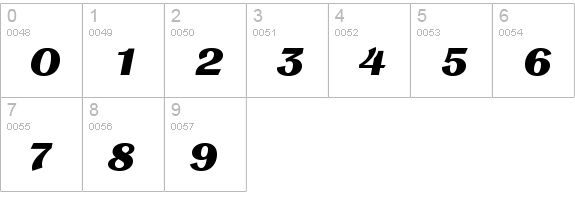
PanacheEF-BlackItalic Font Details
Introducing PanacheEF-BlackItalic, a stunning font that effortlessly combines elegance and boldness. This sleek and sophisticated typeface is the perfect choice for adding a touch of class to your projects. With its sleek lines and graceful curves, PanacheEF-BlackItalic exudes a sense of confidence and style. Whether you're designing a logo, creating an invitation, or crafting a brand identity, this font will make a lasting impression. The unique italic styling of PanacheEF-BlackItalic adds a sense of movement and dynamism to your text, making it truly stand out from the crowd. Its distinct character is sure to captivate and engage your audience, leaving a lasting impression. But what sets PanacheEF-BlackItalic apart from other fonts is that it is not only visually stunning, but also free to download. Yes, you read that right! This incredible font is freely available to download at FontsMarket.com, allowing you to elevate your designs without breaking the bank. So why wait? Embrace the elegance and boldness of PanacheEF-BlackItalic and take your designs to the next level. Download this incredible font today at FontsMarket.com and unlock a world of possibilities for your creative ventures. Don't miss out on this amazing opportunity to add a touch of panache to your projects.